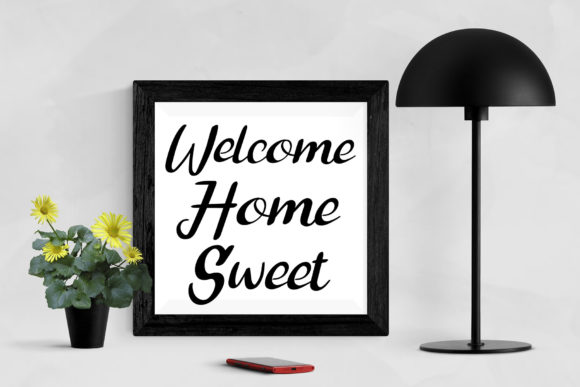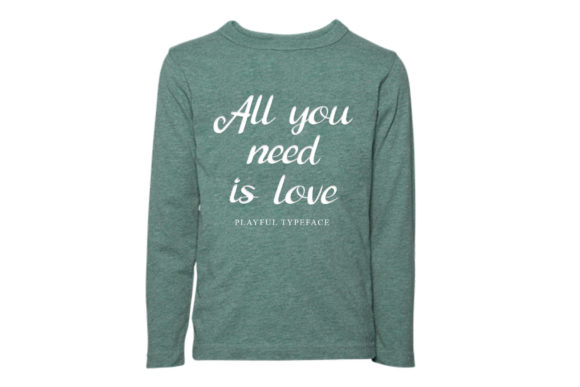
Mockup Room Font
db-ku.com - Script & Handwritten -- Mockup Room is a sweet, whimsical, flowing and thin script font. Featuring characters that dance along the baseline, this font will add a luxury spark to any design project that you wish to create!